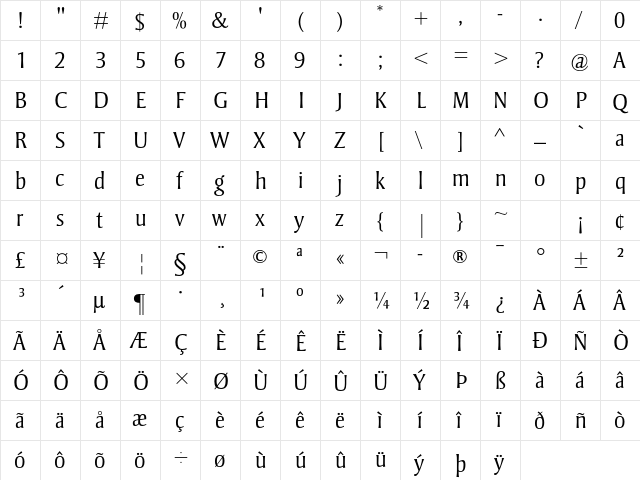
Strayhorn MT Std Light
| Designer | Michael Harvey |
Design Context for Strayhorn MT Std Typeface
Strayhorn MT Std is a composed and adaptable typeface that performs quietly and consistently across a wide range of design contexts. Its slender proportions lend an understated elegance to any composition.